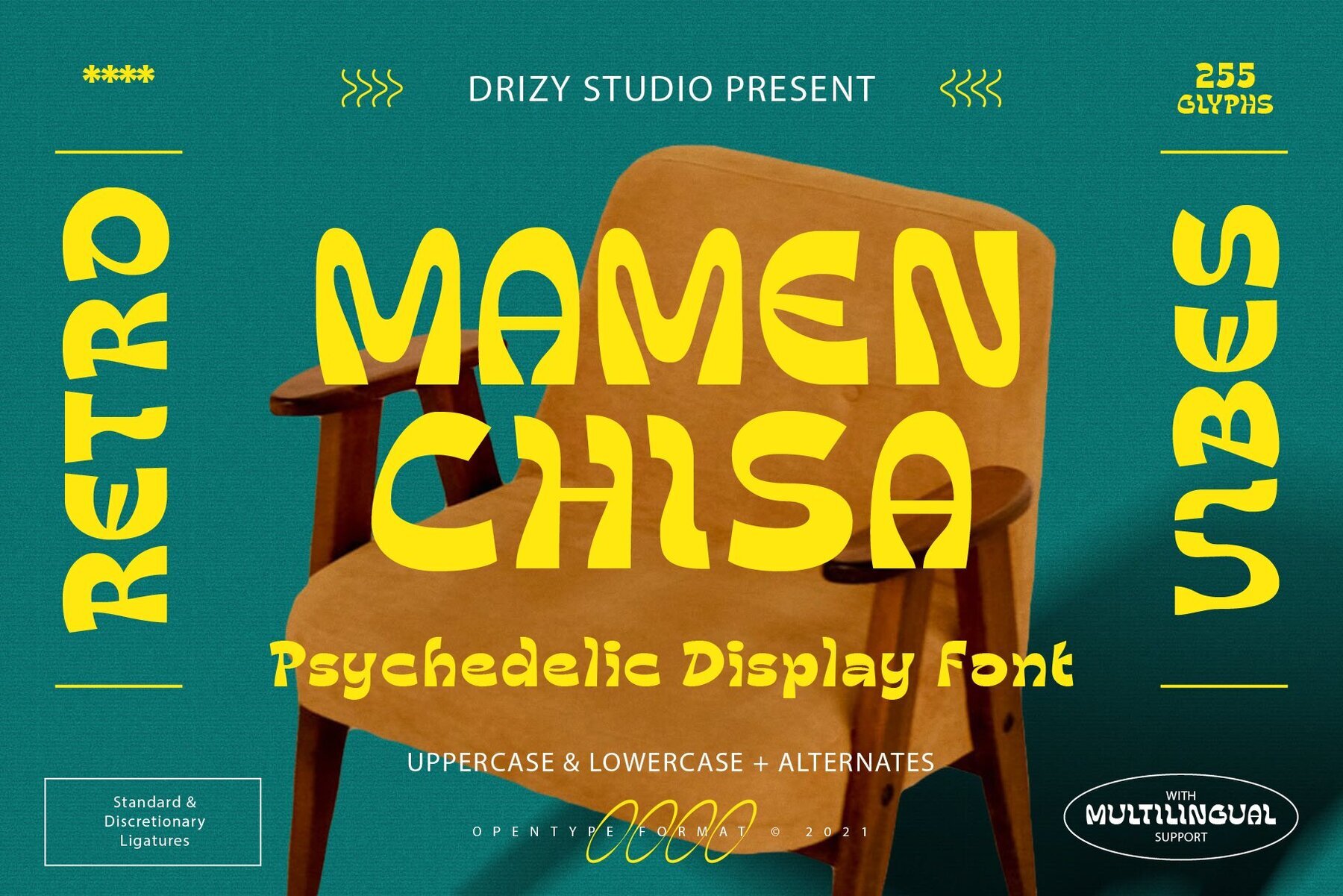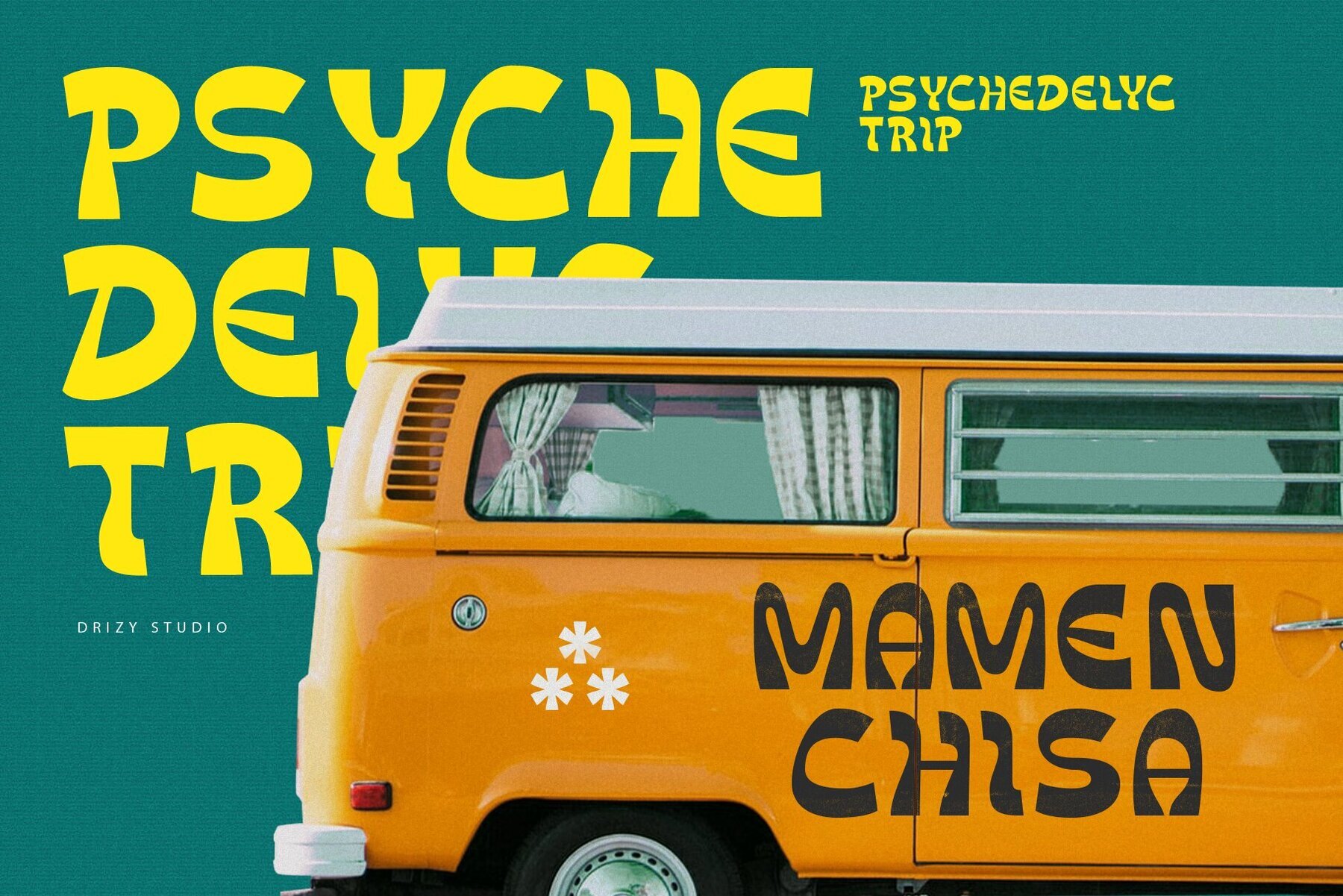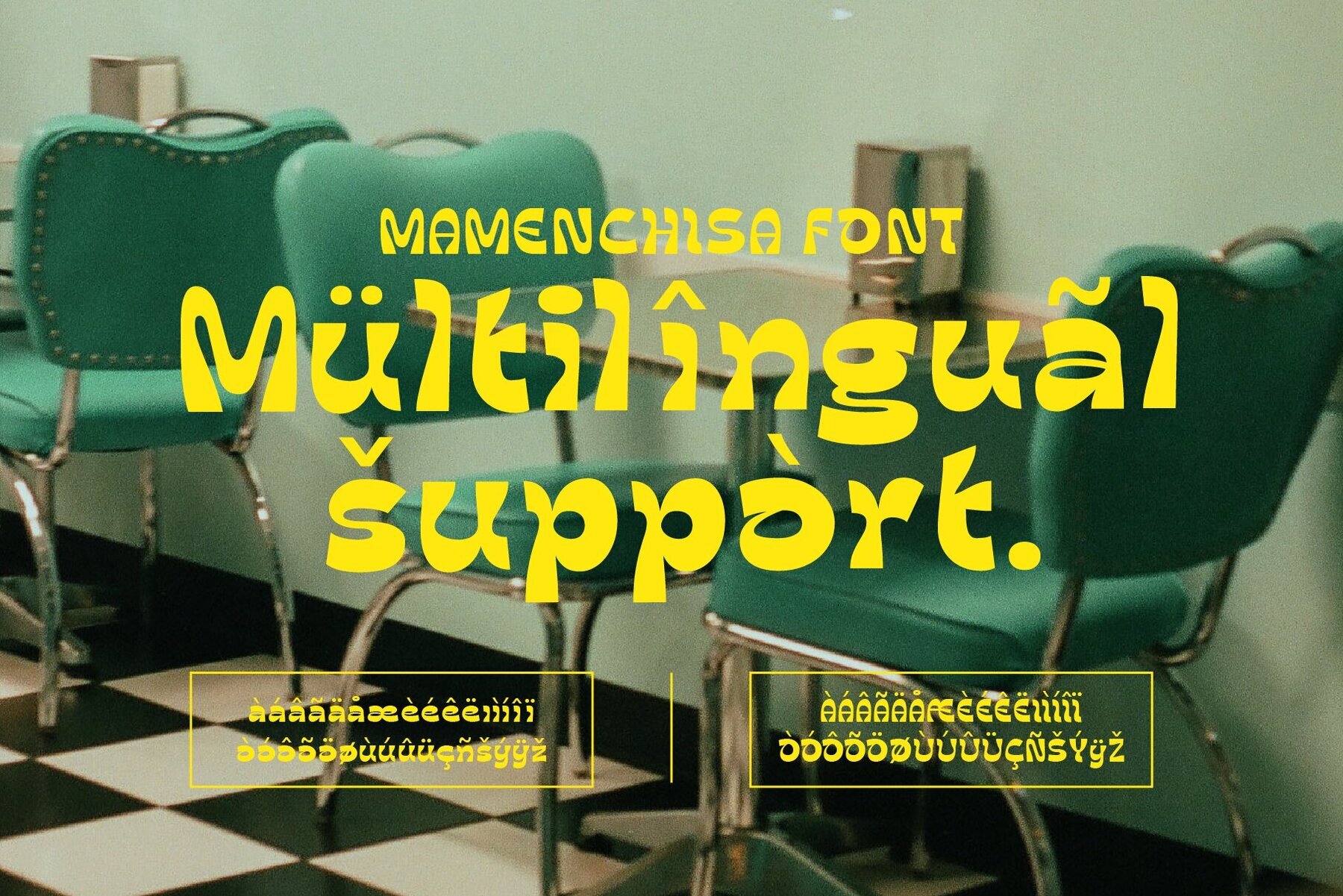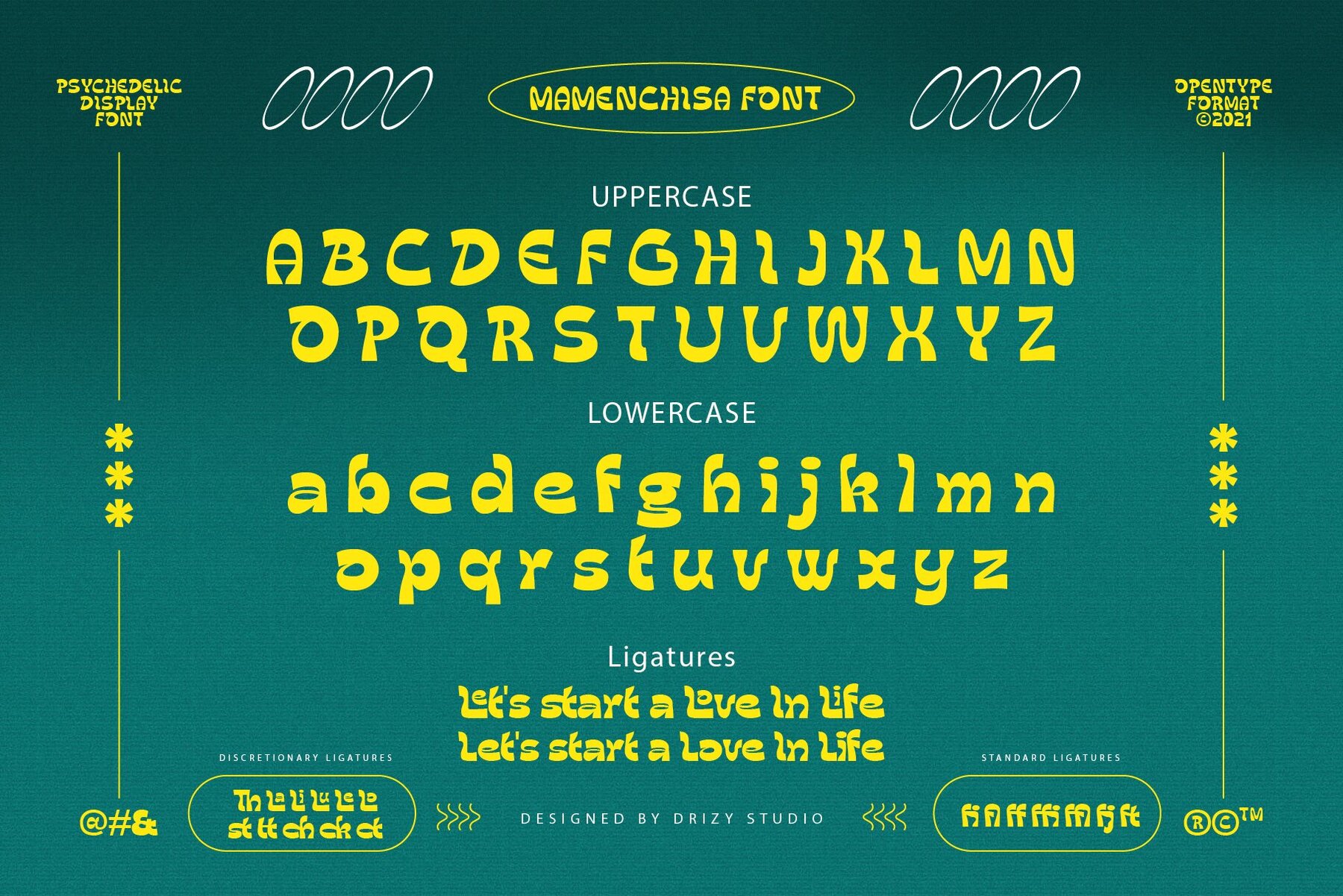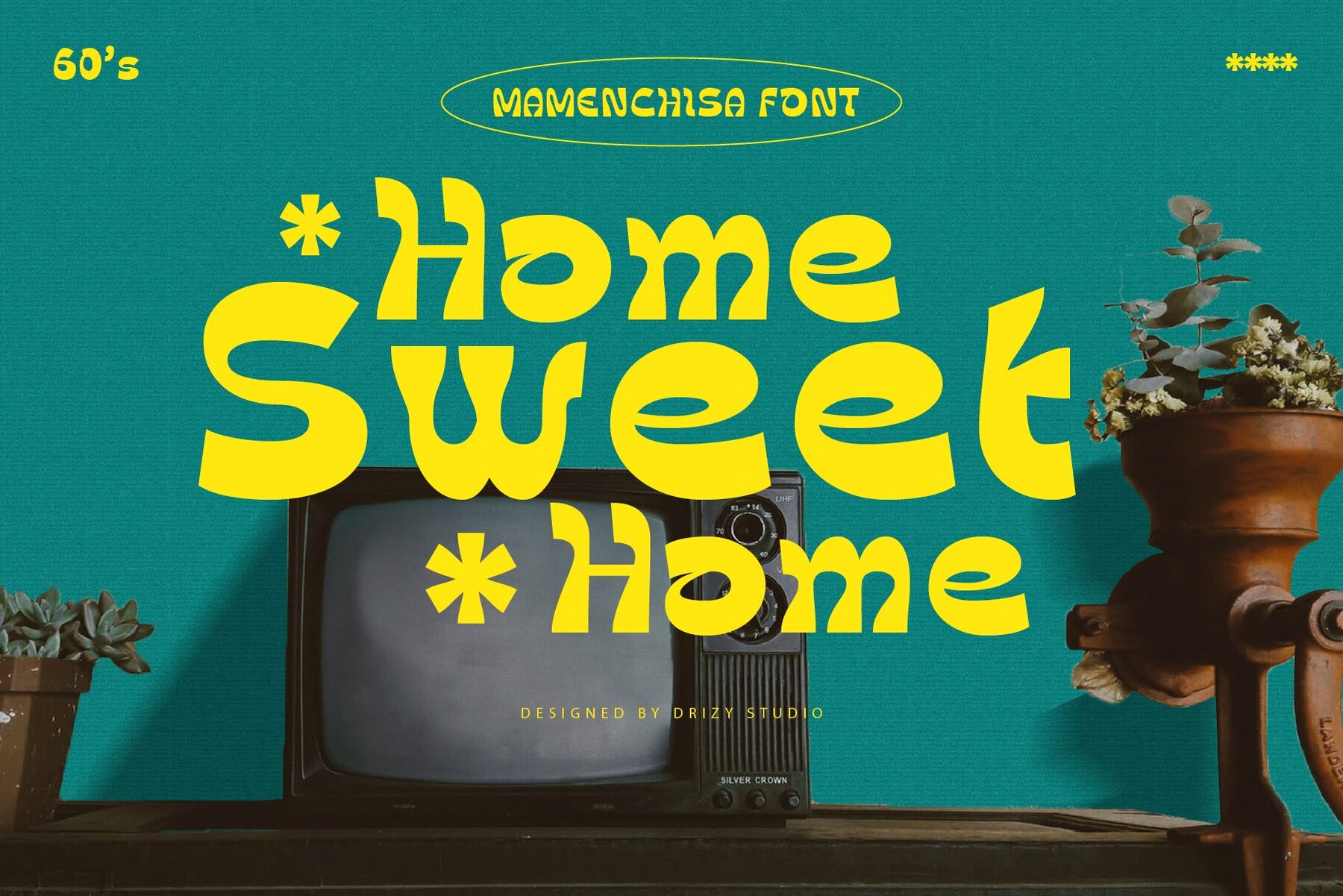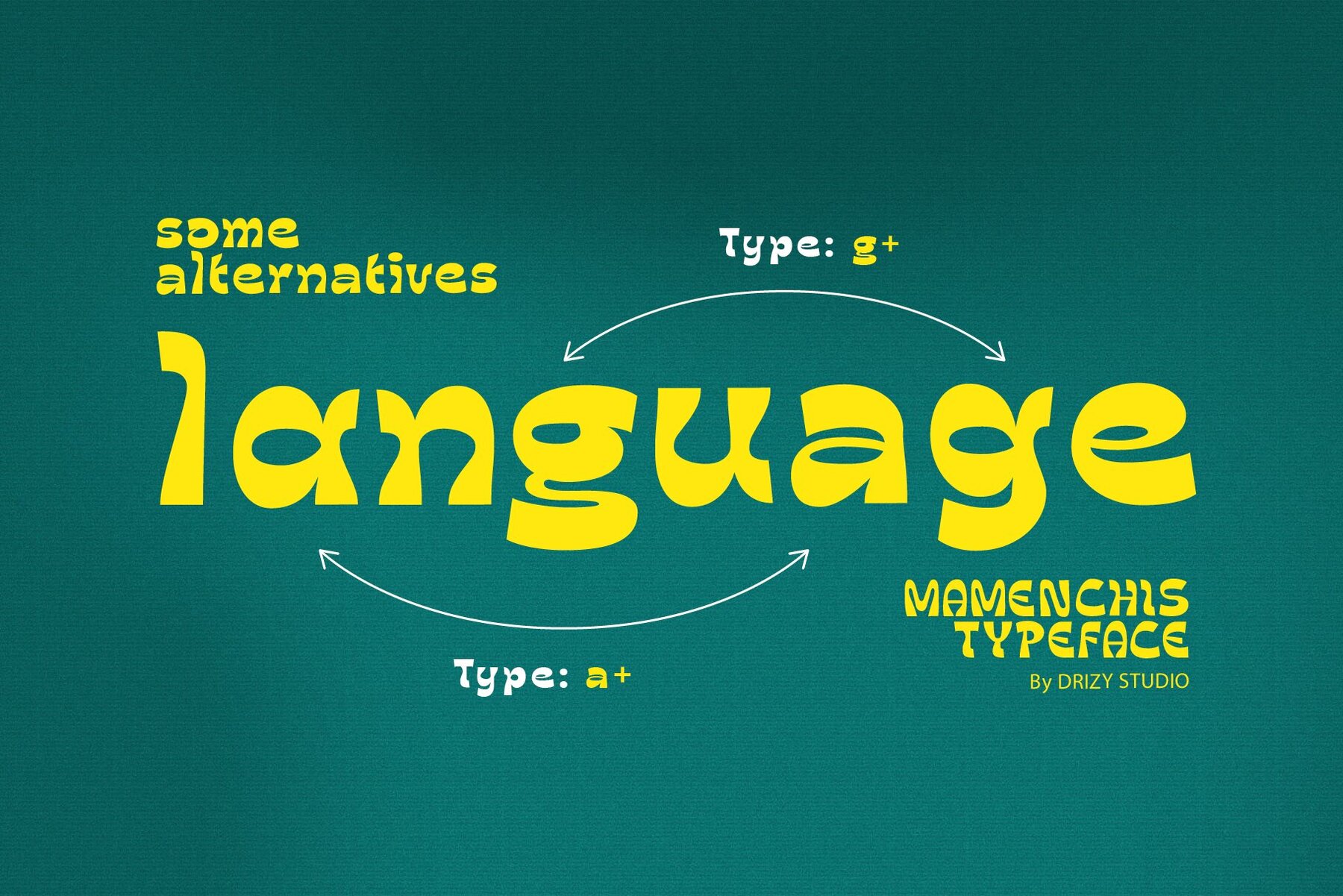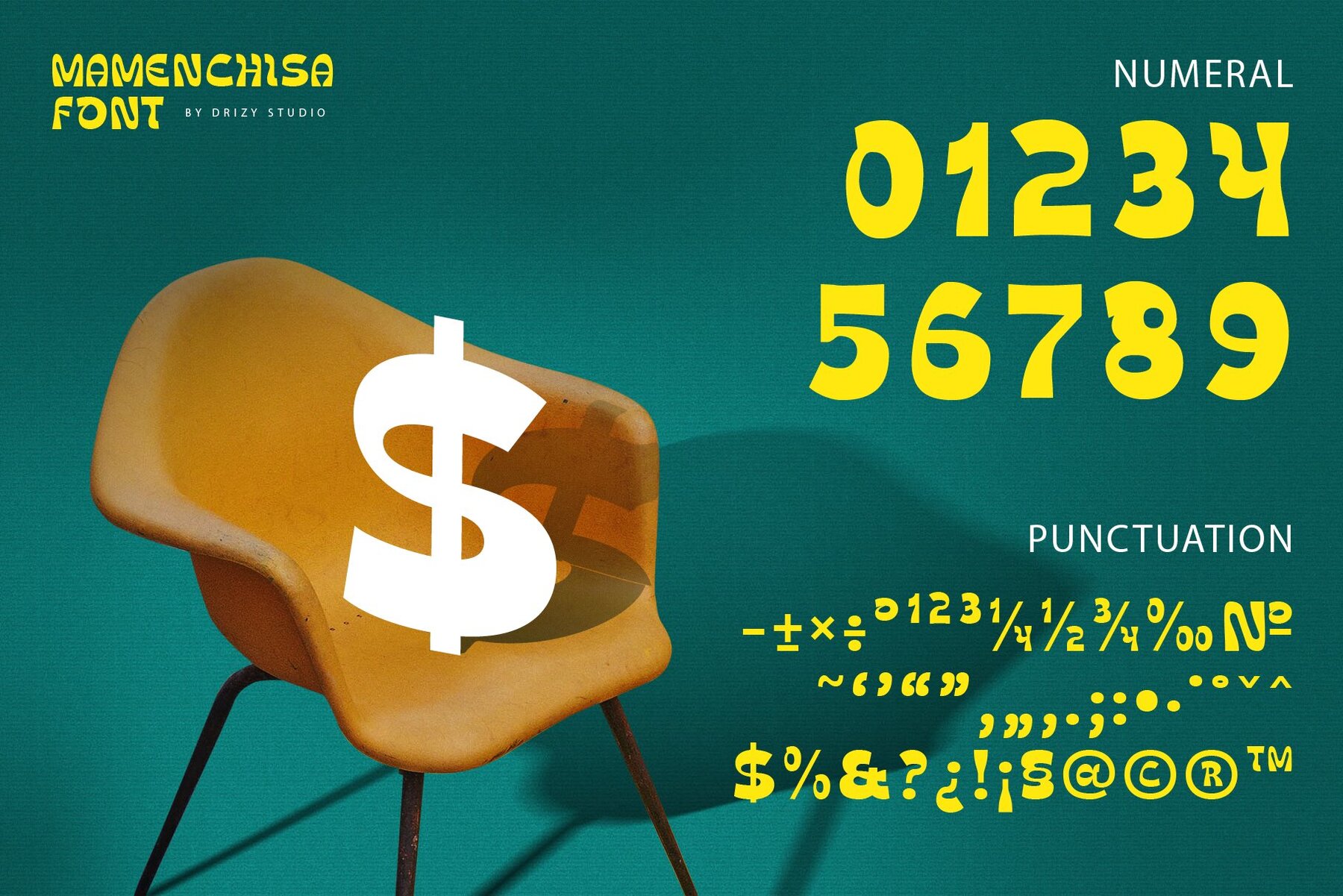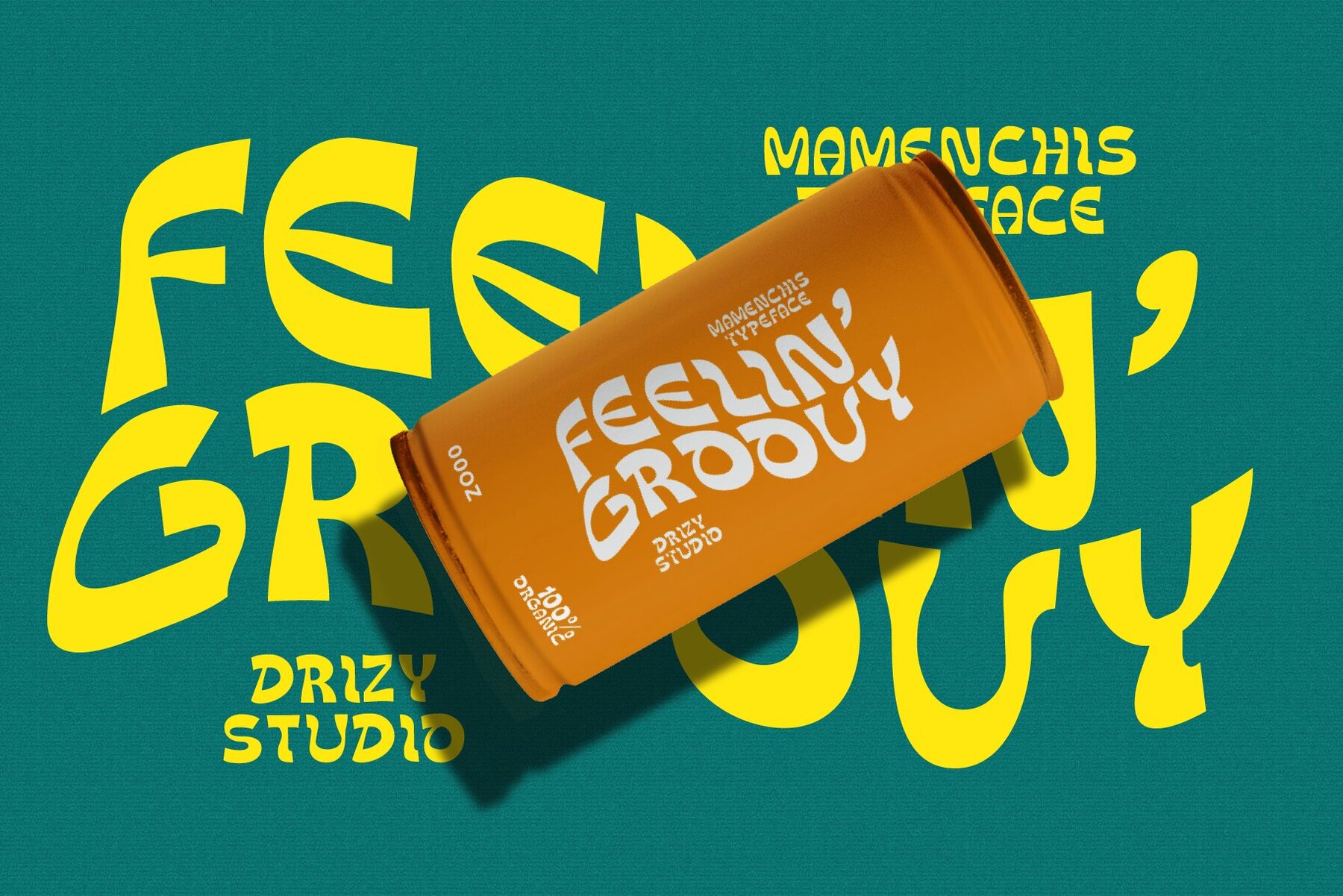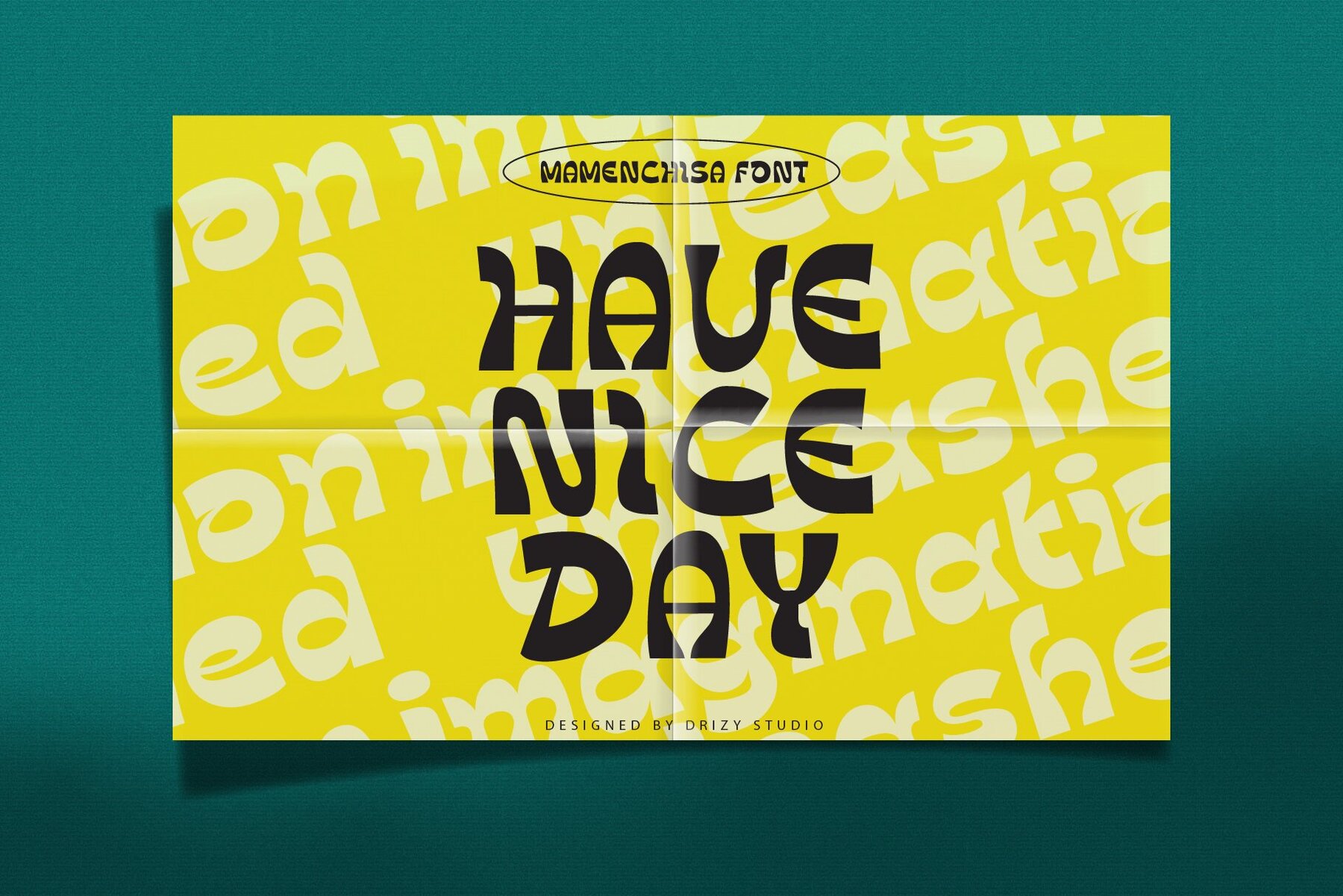
Mamenchisa Font
Mamenchisa Regular
From the creative alcove of Drizy Studio, we introduce Mamenchisa, an exquisite, one-of-a-kind Psychedelic Display Font. Driving your creative visions with its unique style, it is specifically designed to bring art into the branding world, an impeccable choice for the sculptors of beautiful logos and captivating titles. Built with multi-language support and a roster of ligatures, Mamenchisa is the muse every graphic designer and marketing firm needs for their typographic symphony.Unleash the Power of Drizy Studio's Mamenchisa - A Psychedelic Display Font Masterpiece